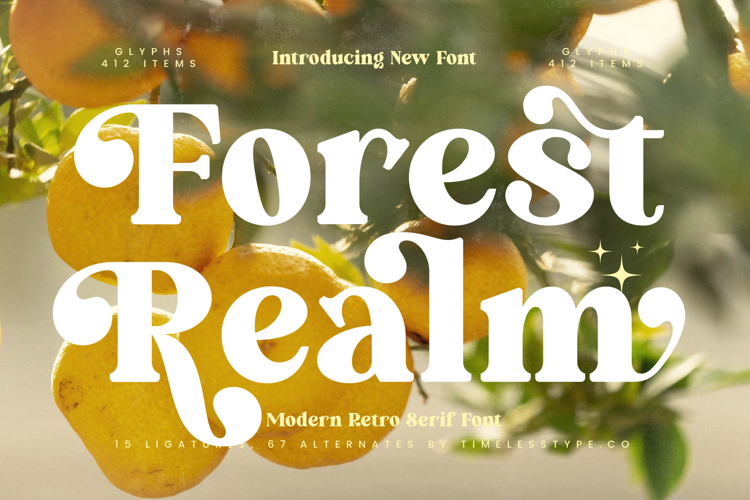
Forest Realm - Modern Retro Serif Font
Forest Realm is a modern retro serif font that captures the perfect balance between bold strength and decorative charm. Its chunky letterforms, playful swashes, and expressive curves make it an eye-catching typeface that feels both nostalgic and fresh. Designed with 15 ligatures and 67 alternates, Forest Realm provides designers with abundant creative options to bring unique variation and artistic flair to any project. Its groovy yet elegant style makes it a versatile tool for creating standout designs that radiate character and energy.
This font excels in headline typography, where its bold serifs and whimsical alternates immediately draw attention across posters, banners, and editorial layouts. In branding and logo design, Forest Realm communicates creativity and personality, making it an ideal choice for lifestyle brands, artisanal businesses, and products seeking a stylish retro identity. Its decorative presence also makes it highly effective in packaging design, especially for food, beverages, and handmade goods, where typography plays a central role in visual appeal.
Forest Realm thrives in advertising campaigns, event promotions, and social media graphics, where its playful ligatures and expressive alternates elevate messages with flair. In editorial layouts, merchandise, and lifestyle projects, the font adds warmth and individuality, ensuring that typography becomes a defining design element.
Its adaptability makes Forest Realm equally effective in wedding invitations, creative posters, and digital platforms, where a mix of boldness and retro elegance can set the tone. With multilingual support and over 400 glyphs, this typeface works seamlessly in international projects, making it a practical choice for global creatives.
Ultimately, Forest Realm is more than just a retro-inspired serif—it is a visual statement of playfulness and style. Whether applied to headlines, branding, packaging, advertising, or editorial design, it ensures every project carries energy, personality, and timeless charm.